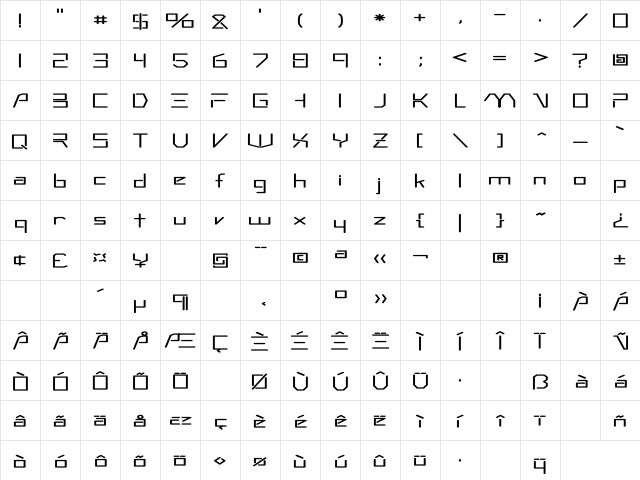
Rsandromed Ex Regular
Design Context for Rsandromed Ex Typeface
Rsandromed Ex offers clean, dependable letterforms without strong stylistic allegiance, making it a practical choice for designers who need flexibility.